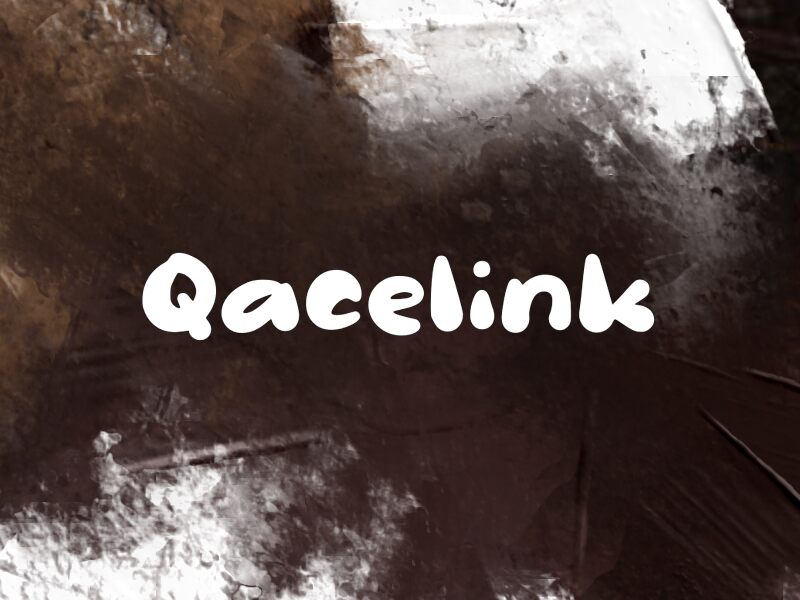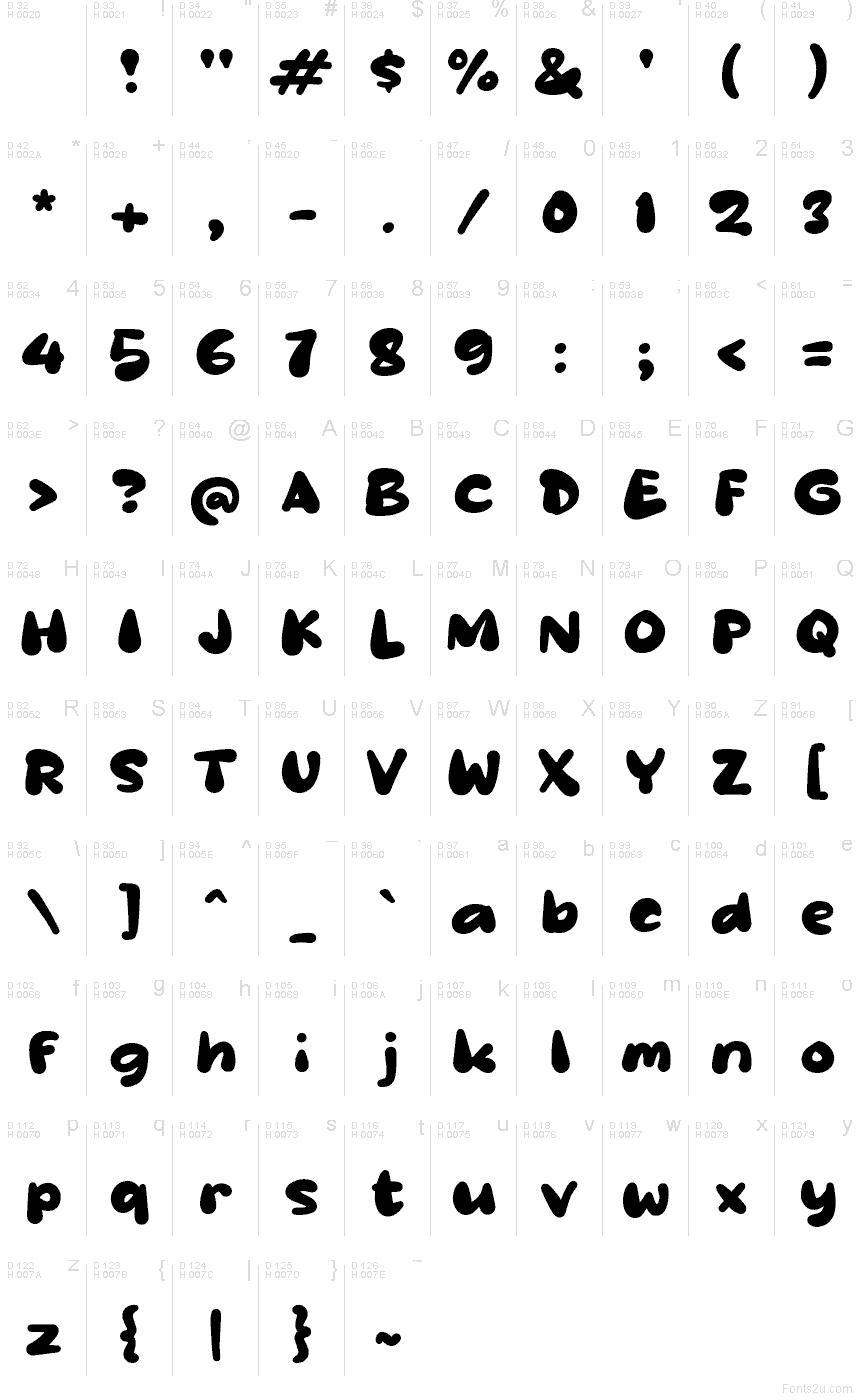
Qacelink
Qacelink font by wep is a free cartoon display typeface with the squishy, inky energy of hand-drawn lettering. Each letter looks puffed-up and bouncy, with rounded blobs and playful curves that feel like they could wobble right off the page. The bold, dense strokes keep it readable even at smaller sizes, while the irregular shapes add just enough chaos to feel fun, not messy.
Using Qacelink, this free font shines on kids’ book covers, game logos, toy packaging, birthday invitations, classroom posters, and playful YouTube thumbnails. It brings a soft, friendly voice to anything aimed at children or lighthearted brands. Try pairing Qacelink with a clean geometric sans for body text, and let Qacelink handle the loud, chunky headlines.